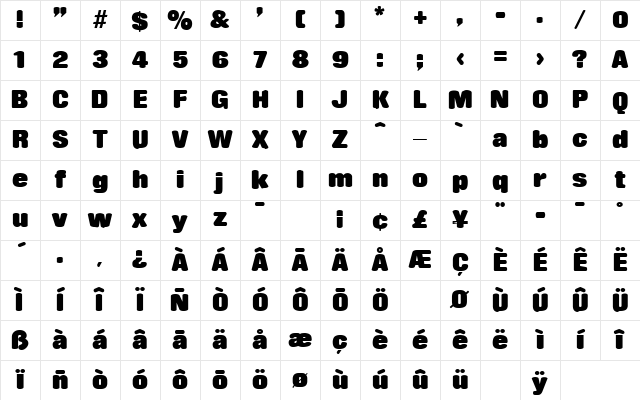
RollingStone DB Regular
Design Context for RollingStone DB
RollingStone DB is a composed and adaptable typeface that performs quietly and consistently across a wide range of design contexts.
Pro Tip: Use RollingStone DB in both headline and body roles to test its range before committing to a single application.